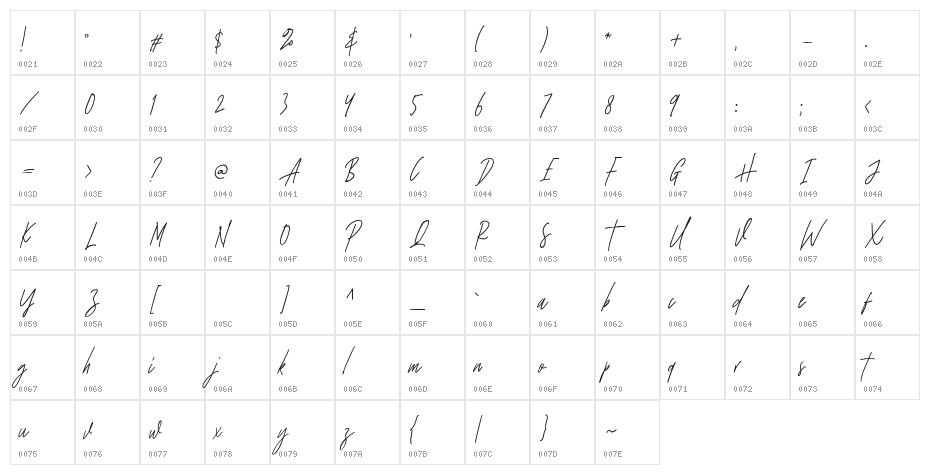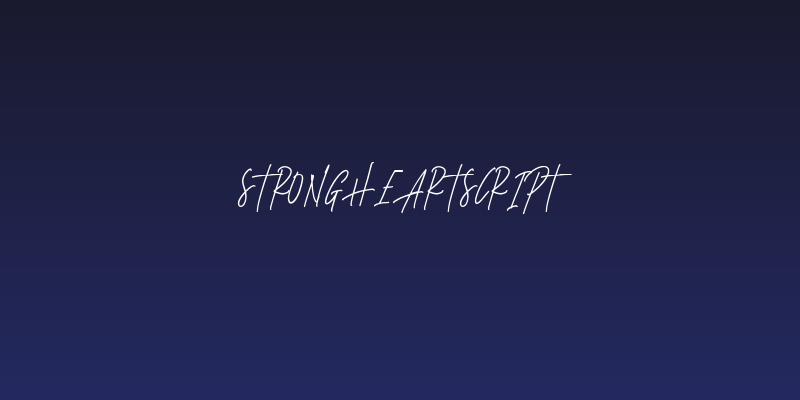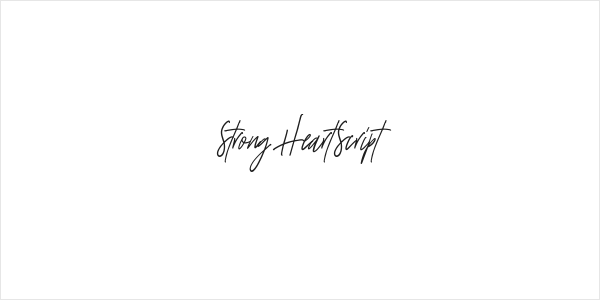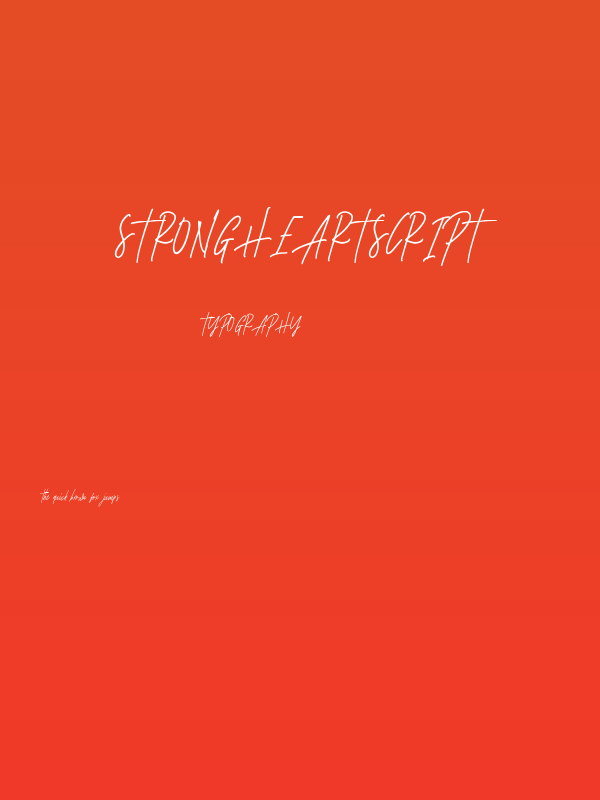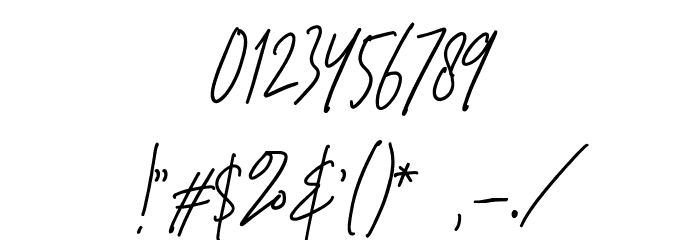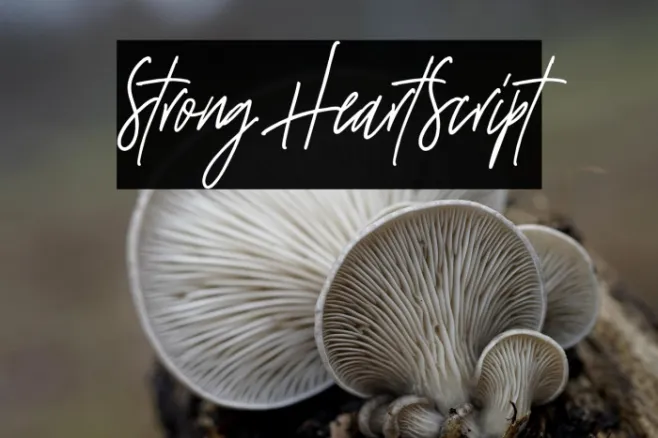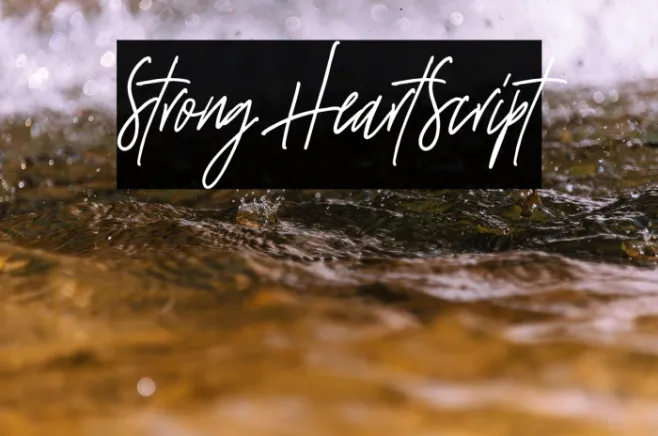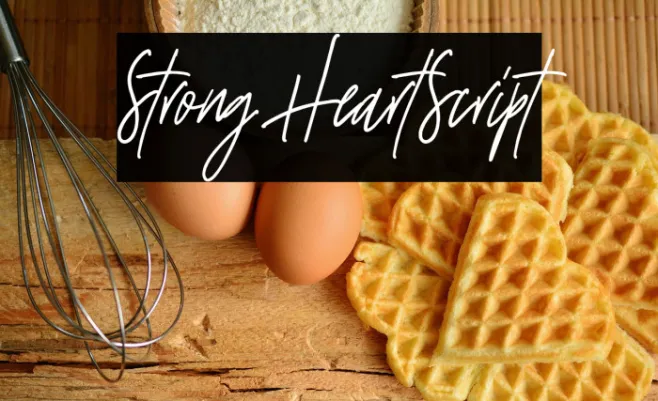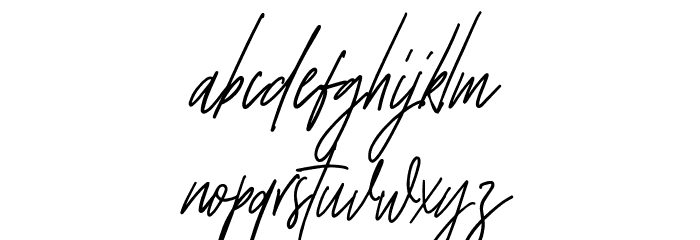
StrongHeartScript Font
StrongHeartScript Description
This font exudes a dynamic and energetic feel with its fluid, handwritten style. The letters are elongated and slightly slanted, giving a sense of movement and elegance. The uppercase characters are bold and prominent, while the lowercase letters maintain a consistent flow, enhancing readability. The numerals are distinct and well-integrated into the overall design. Special characters are crafted with the same attention to detail, ensuring they complement the font's aesthetic. This script font is ideal for projects that require a personal touch, such as invitations, greeting cards, or branding materials.